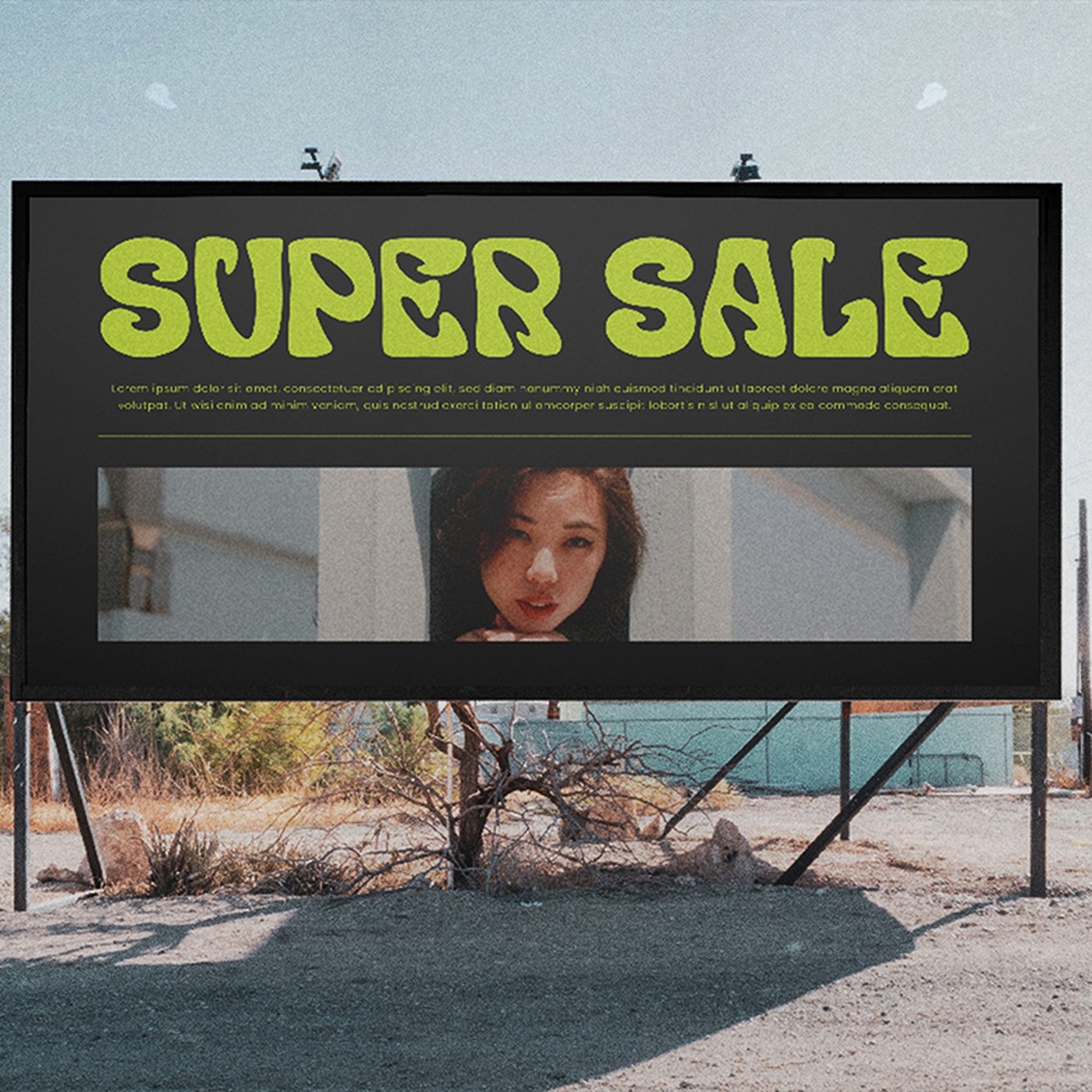
Vantage Free Font: Retro Funk Typeface with a Psychedelic Twist
Historical Roots and Psychedelic Influence
The mid-1960s was a period of profound cultural upheaval and artistic experimentation, particularly in Western societies. Emerging from a backdrop of social change, civil rights movements, anti-war protests, and an explosion of new music genres like psychedelic rock, a distinct visual language began to coalesce. This counterculture aesthetic, characterized by its rejection of traditional norms, embraced vibrant, often hallucinatory colors, fluid lines, distorted perspectives, and highly stylized typography. Legendary graphic designers such as Wes Wilson, Victor Moscoso, Rick Griffin, and Stanley Mouse became synonymous with this movement, creating iconic concert posters for bands like The Grateful Dead, Jefferson Airplane, and Jimi Hendrix. Their work often featured undulating, organic letterforms that seemed to melt or undulate, reflecting the mind-altering experiences associated with psychedelic culture. The primary goal was not always immediate legibility but rather an immersive visual experience, drawing the viewer into a fantastical, often surreal world.
Vantage directly references this rich heritage, yet it does so with a nuanced understanding of modern design requirements. While maintaining the core ethos of fluidity and expressiveness, the font avoids the extreme legibility challenges that some pure psychedelic typefaces presented. The expert hand-drawn details within Vantage bring an organic texture into every individual glyph shape, reminiscent of the silkscreen printing techniques prevalent in the 60s. These character outlines present a beautiful visual flow, making them particularly effective for large poster headlines where their expressive qualities can truly dominate the composition. The bold strokes contribute immediate structural weight, imparting a heavy and grounded feel that, despite its organic nature, dictates a strong compositional tension on the page. This inherent tension, a hallmark of impactful display typography, ensures that Vantage commands attention without overwhelming the viewer.
Typographic Craftsmanship and Design Principles
The development of Vantage involved a meticulous balance between artistic expression and typographic discipline. The heavy weight of the letterforms contrasts subtly with the negative spaces inside the letters, a design technique that enhances visual interest and sophistication. This interplay of positive and negative space is crucial for readability, even in display fonts, ensuring that the characters retain their distinct forms despite their bold presence. Negative spaces around the letterforms further enhance readability, especially in print applications, by providing necessary visual breathing room.
One of the standout features of Vantage is its tight letter-spacing, which locks words together into a solid visual block. This intentional design choice contributes to the font’s cohesive and impactful appearance, making it ideal for impactful headlines, logos, and short branding statements where visual unity is paramount. Despite its organic and hand-drawn feel, strong geometric anchors preserve alignment across complex editorial layouts. This underlying structure, subtly informed by principles often associated with the Swiss grid system, ensures that the font maintains a sense of order and balance, making it versatile enough for structured design projects while still exuding a free-spirited vibe. Each curved line within the typeface subtly references vintage vinyl record covers and musical posters, cementing its connection to the cultural artifacts of its inspirational era. This detailed attention to historical accuracy, combined with modern design principles, allows Vantage to bridge the gap between nostalgic aesthetics and contemporary functional needs.
Designing with Vantage: Applications and Versatility
A disciplined typographic system is essential for any modern font seeking widespread adoption, and Vantage is engineered to scale seamlessly across both physical and digital platforms. Each glyph design adapts perfectly to modern screen environments, ensuring crisp rendering and consistent visual impact on websites, mobile applications, and digital displays. Simultaneously, its robust design makes it highly suitable for packaging, where its tactile contrast and strong visual presence can significantly enhance product appeal.
The underlying Swiss grid structure, though subtly integrated, aligns these letterforms with strict geometric harmony, demonstrating a thoughtful approach to balancing artistic freedom with structural integrity. This makes Vantage remarkably versatile. High contrast display weights pair beautifully with clean sans-serif text blocks, allowing designers to create hierarchical and aesthetically pleasing layouts where Vantage can serve as a powerful focal point while body text remains highly legible.
For print designers, the tactile contrast emerges powerfully when using heavy uncoated paper stock. The deep ink absorption on textured cardstock enhances the vintage style, giving printed materials a rich, authentic feel that digital displays cannot replicate. The recommended color palette, relying on bold black ink on a warm off-white background, is a deliberate choice. This simple, high-contrast pairing allows the expressive letterforms to dominate the layout, maximizing their visual impact and ensuring that the font’s unique characteristics are the undisputed focus. Fine letter spacing adjustments, which can be critical for display fonts, ensure readability even in tight headlines, demonstrating the font’s commitment to both aesthetics and practical application.
Vantage Free Font: Retro Funk Typeface with a Psychedelic Twist
Creatype Studio Gallery’s Contribution and Market Impact
Creatype Studio Gallery, known for its contributions to the design community, establishes a strong editorial context with the release of Vantage. By offering this typeface as a free resource, the studio not only democratizes access to high-quality design assets but also reinforces its commitment to empowering designers across various experience levels. The typeface explicitly honors classic design history while serving contemporary functional needs, a testament to Creatype Studio Gallery’s vision of creating tools that are both historically informed and future-proof.
Designers can utilize these unique styles to craft striking visual identities for brands seeking to evoke a sense of nostalgia, authenticity, or artistic rebellion. This resource provides immense value for creative packaging and merchandising, offering a distinctive visual voice that stands out in a crowded marketplace. Imagine craft beer labels, music festival branding, independent fashion lines, or artisanal product packaging utilizing Vantage to communicate a unique brand story. The design team has successfully revived psychedelic art for contemporary audiences, proving that these once-niche aesthetics possess enduring appeal and can be reinterpreted for modern commercial and artistic purposes.
The connection between classic pop art and modern digital publishing standards is seamlessly achieved through Vantage. This vintage funk aesthetic remains highly relevant for merchandise branding, appealing to demographics that appreciate retro culture and unique artistic expression. It offers a unique visual voice that distinctly stands out from the prevalence of neutral, minimalist fonts, providing a compelling alternative for projects that demand character and personality.